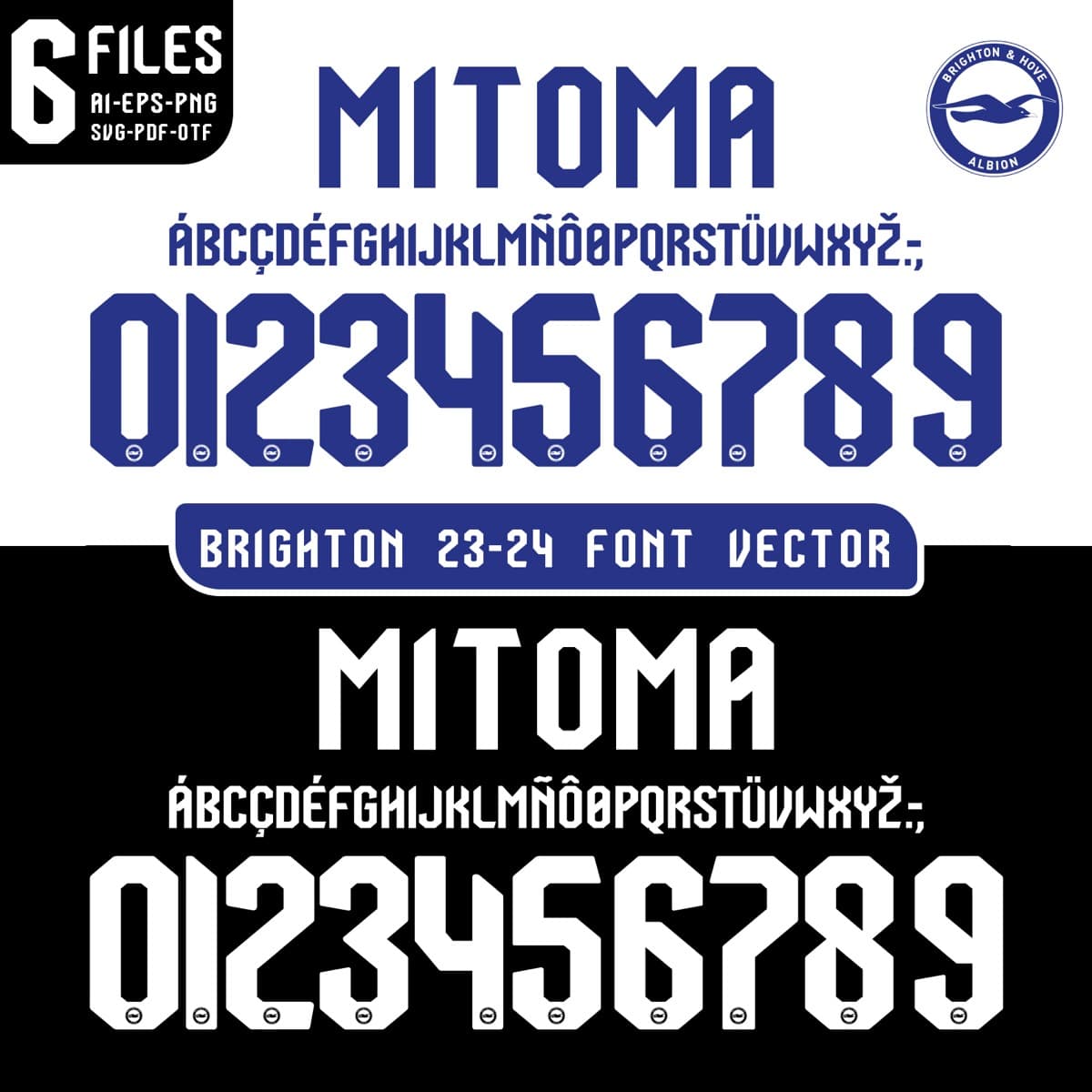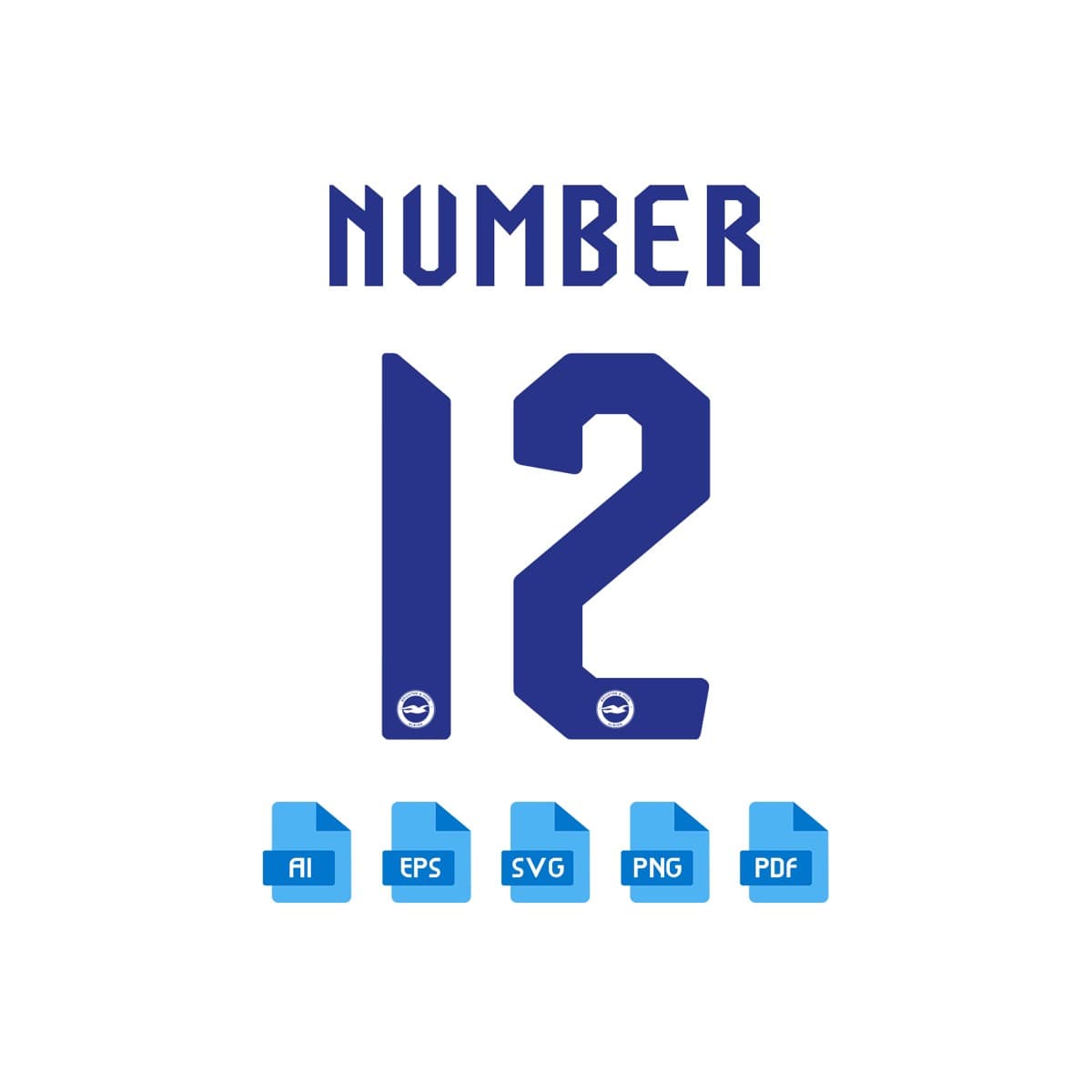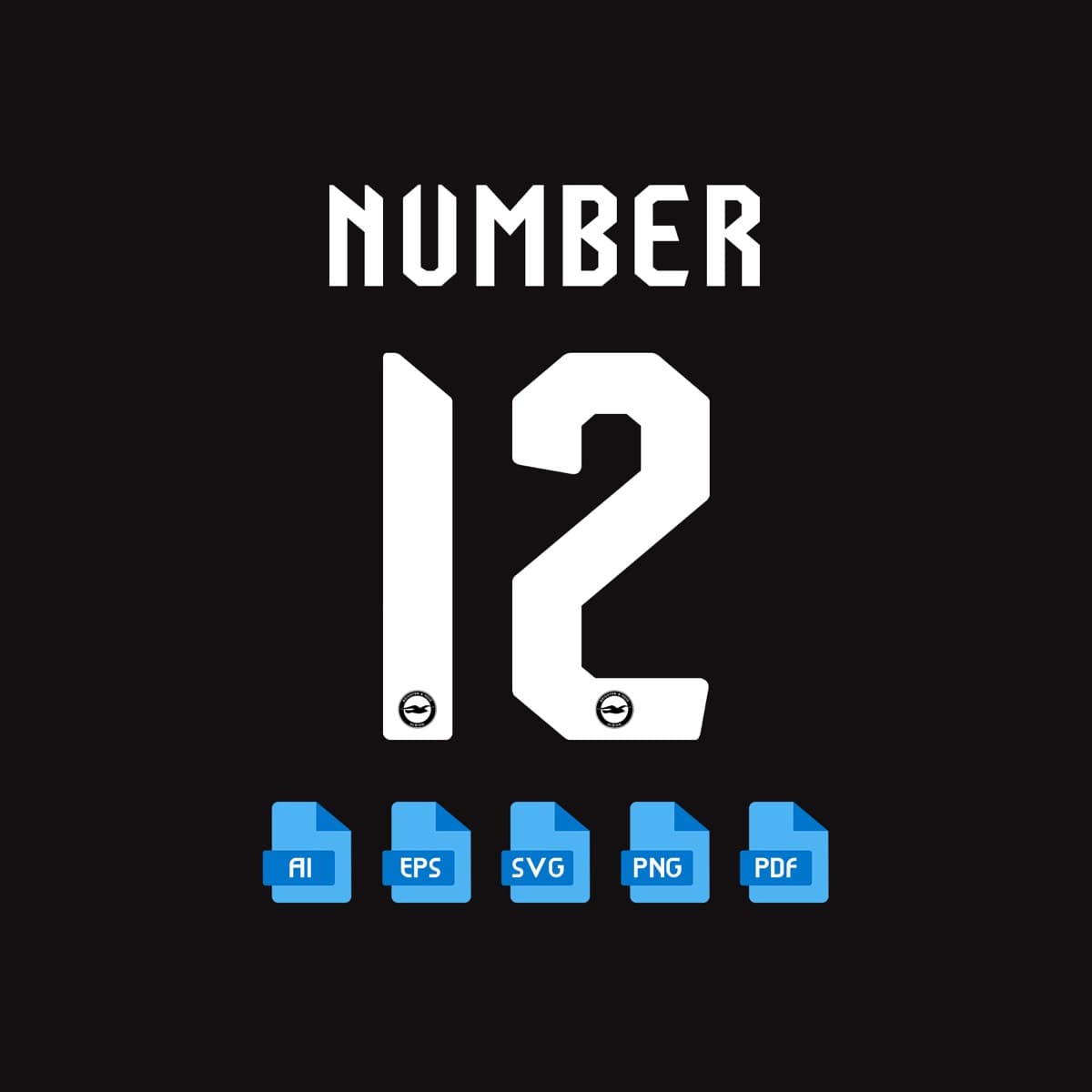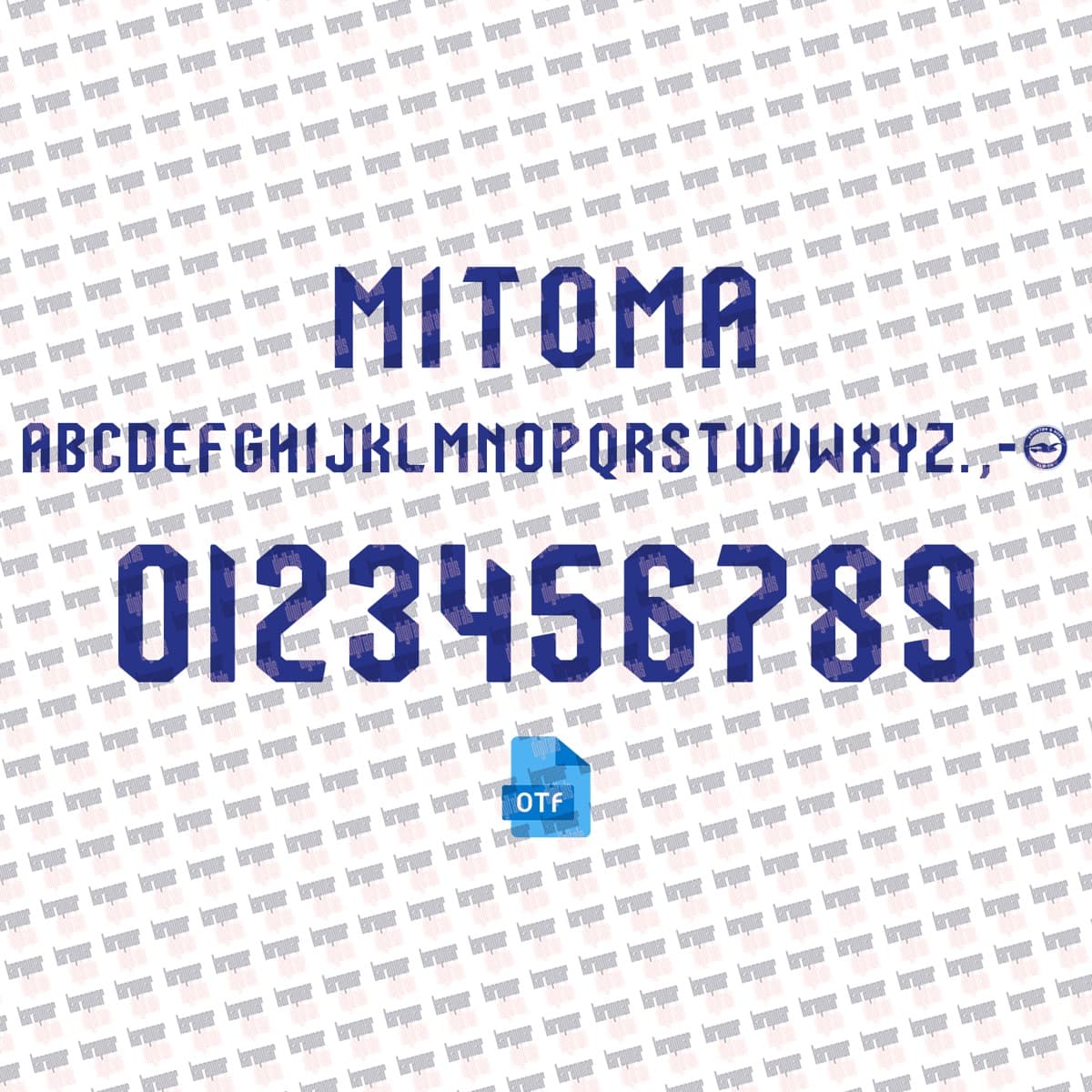
Brighton 2024
Brighton & Hove Albion · 2024
Brighton 2024
A set inspired by the Brighton & Hove Albion 2024 jersey typography, with a name and number system redrawn for print and screen. Original curves, consistent weight and a complete 0–9 numeral family.
Does it include lowercase?
Jersey sets focus on uppercase + numerals; the glyph map shows exactly what this set includes.